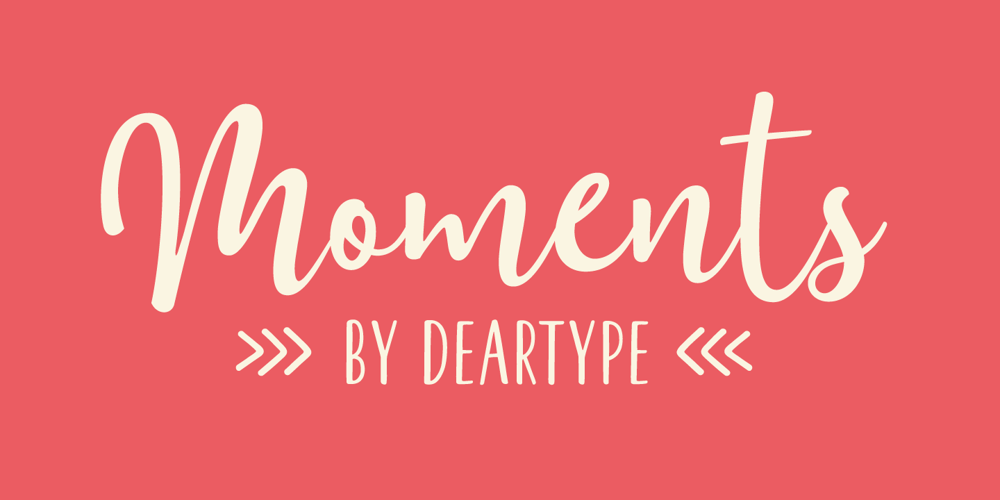
Moments Font Family was designed by Veneta Rangelova and published by DearType. Moments contains 4 styles and family package options. Moments is a charming font family inspired by all those moments in life that make us smile. As usual, it is a combo of an informal script, two handmade sans variations and some extras to spice up your designs. The script has 1300+ lovely glyphs with lots of stylistic variations, ligatures and swashes, which you can mix and match for a more interesting effect. The dancing baseline makes it very casual and full of personality, thus a great addition to every design project. Moments is versatile and can be used on cards, posters, merchandise, book covers, websites, packaging, and basically anywhere you like. The overall feel of the font is warm, elegant and informal and it is perfect if you want to convey a sense of friendliness and style.